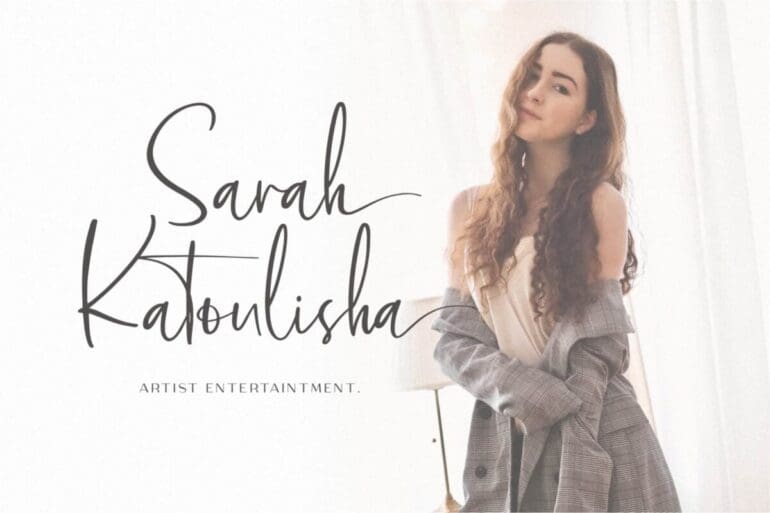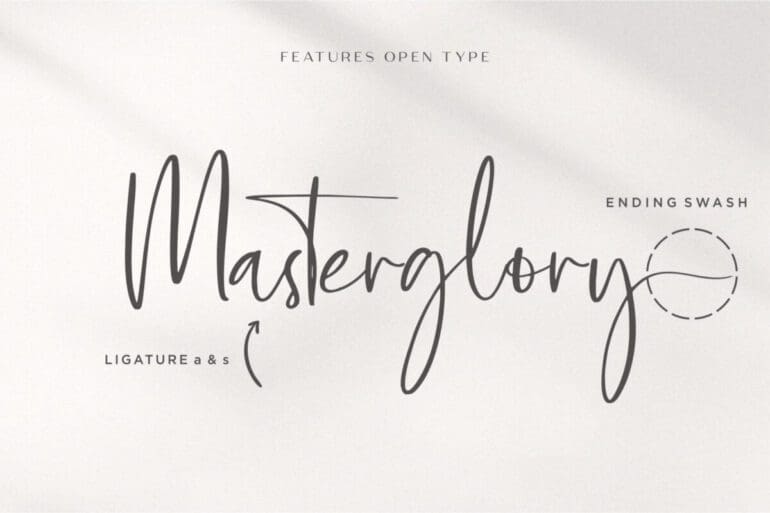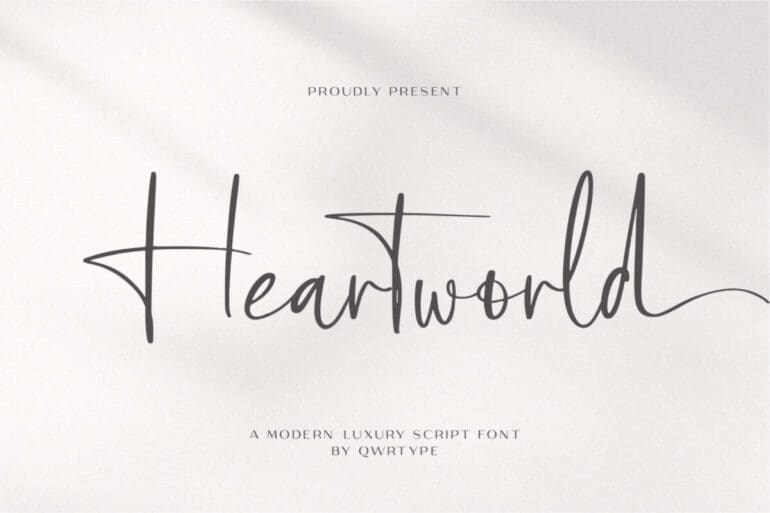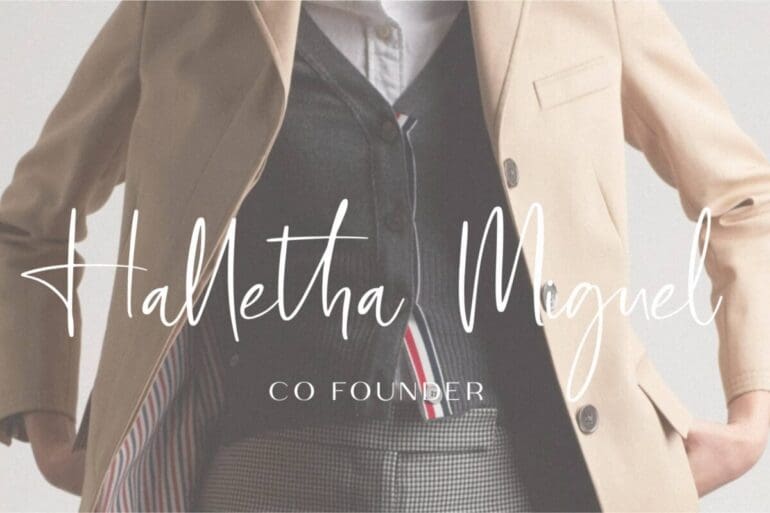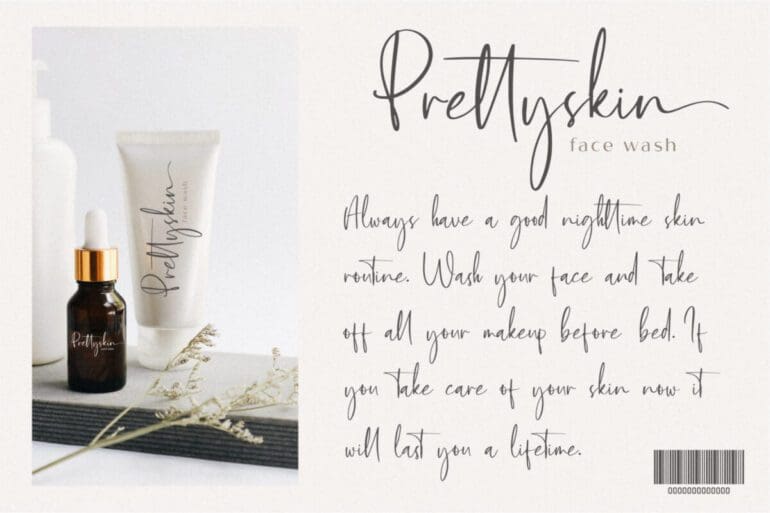
Heartworld Font
Heartworld is a magical script font carefully created with a touch of elegance. This font is PUA encoded which means you can access all of the glyphs and swashes with ease!